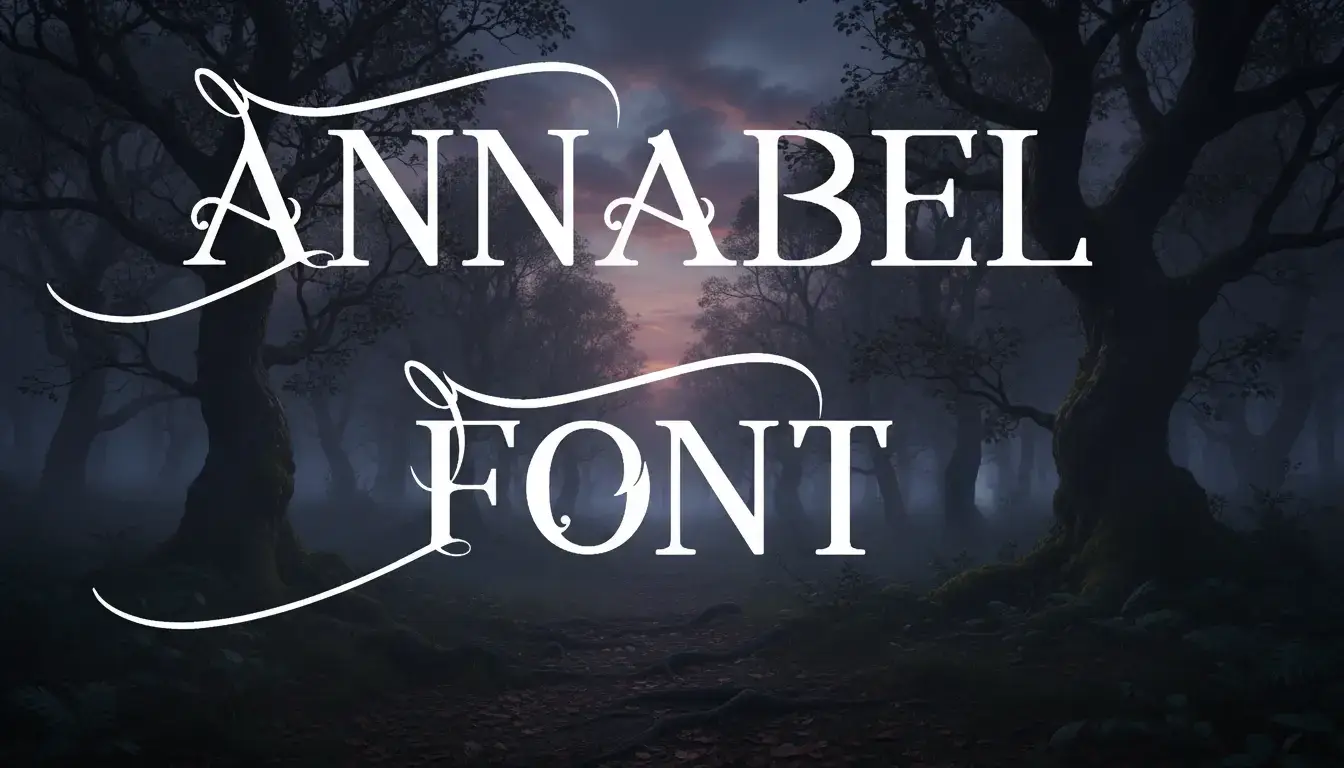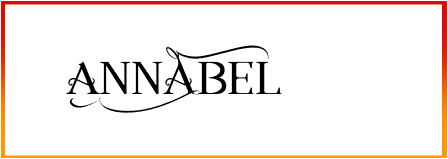
Annabel Font
Annabel
Annabel is a fancy font made by cruzine. It's a decorative display font with plenty of personality, made to grab attention. It's a free download, and you can try it with your own text in the preview above first.
Annabel covers the full alphabet in upper and lowercase, plus all ten numbers, so you can set names, dates and prices without switching fonts. Common punctuation such as &, !, ? and @ is included as well. It doesn't include accented letters such as é or ñ, which makes it an English-only font.
Think of Annabel for posters, logos and eye-catching headlines. Use it for one standout word or headline and let simpler fonts handle the rest.
No. Annabel has no accented letters such as é, ñ or ü, so it's best for English text.